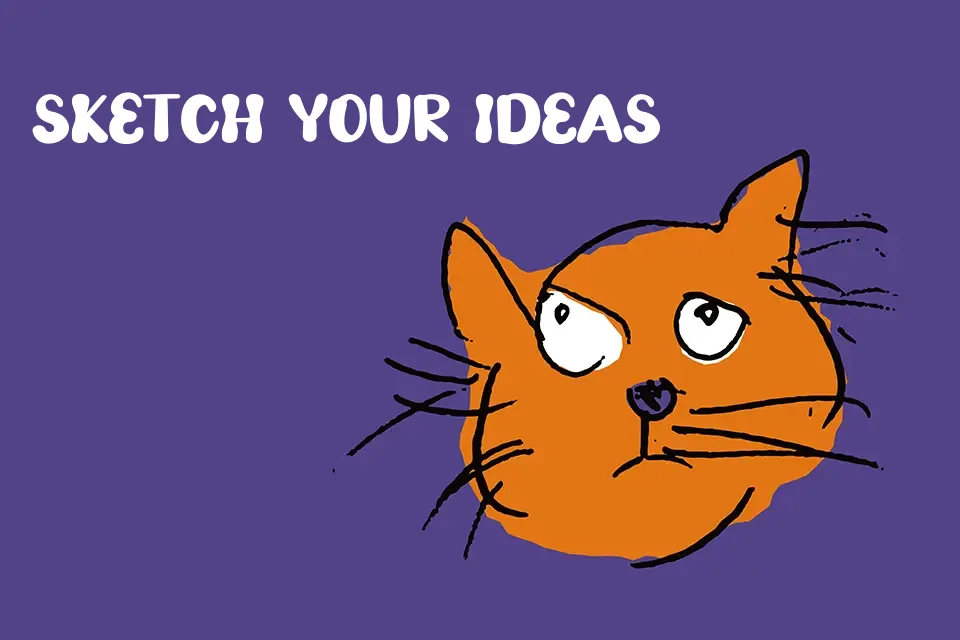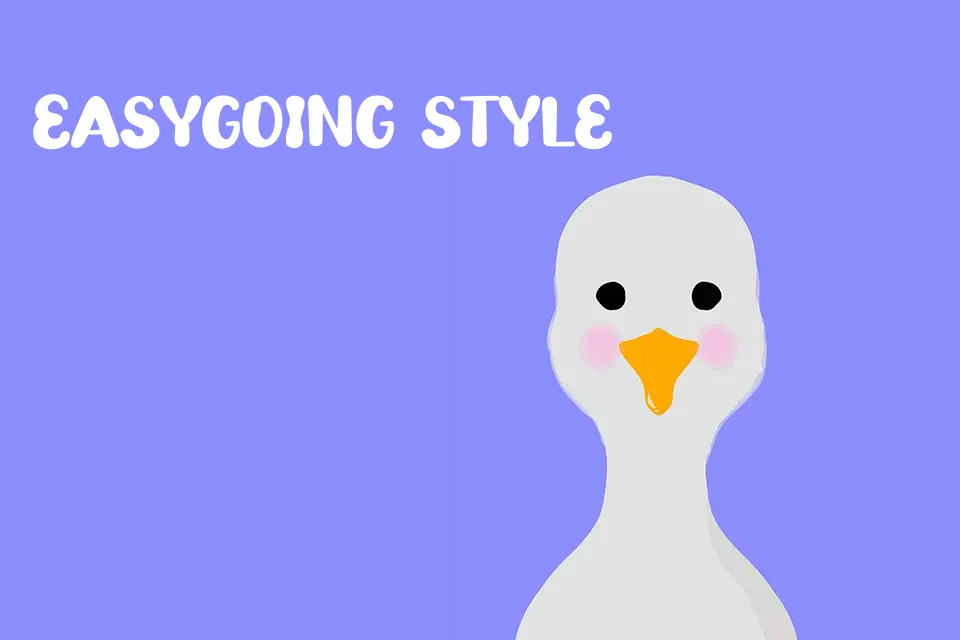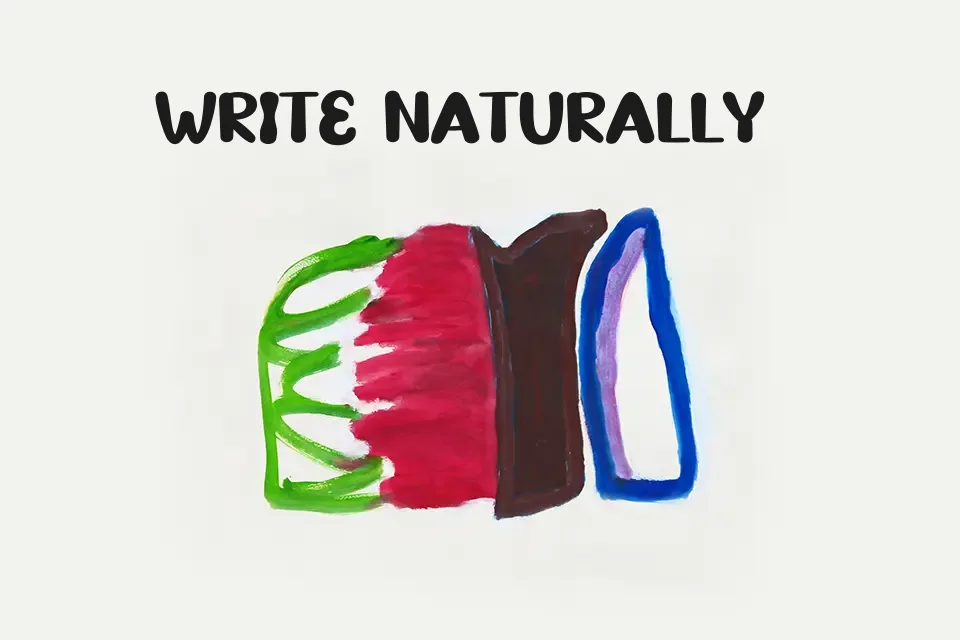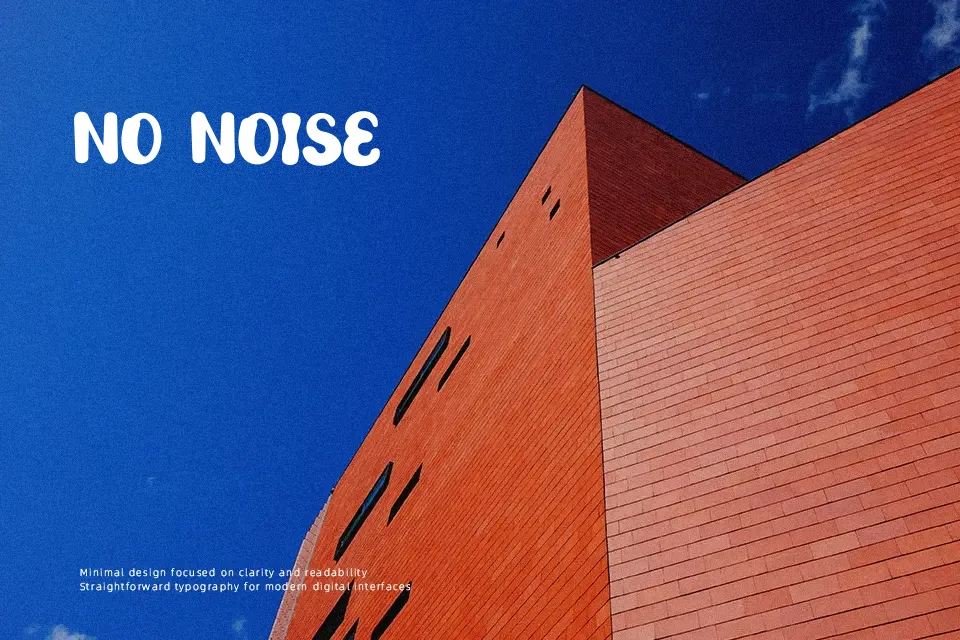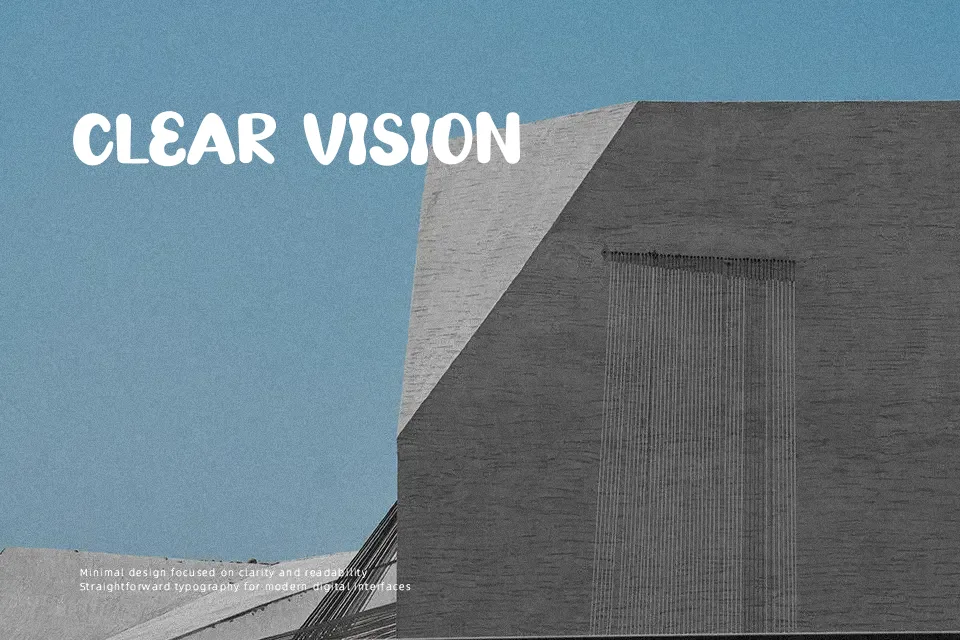
Baby Boy Font
Designed by Andi Moz
Soft, loosely written strokes and slightly bouncy baselines give Baby Boy a casual handwritten look that feels warm and unpretentious. The letters have rounded terminals, moderate contrast, and relaxed spacing, so text stays readable while still looking lively and childlike. It works nicely on baby announcement cards, nursery wall prints, playful product packaging, and social posts that need a gentle, kid‑friendly voice. However, the informal rhythm and irregular letterforms make it less suitable for dense paragraphs or formal branding where strict readability and neutrality are required. Use it when you want a friendly accent, not as your main text workhorse.
baby shower invitations
nursery and kids room posters
playful kids product packaging
baby announcement social media posts
small-size body copy
strictly professional brand identities
Perfect for kids, logo, and packaging, with a cute and cartoon style.